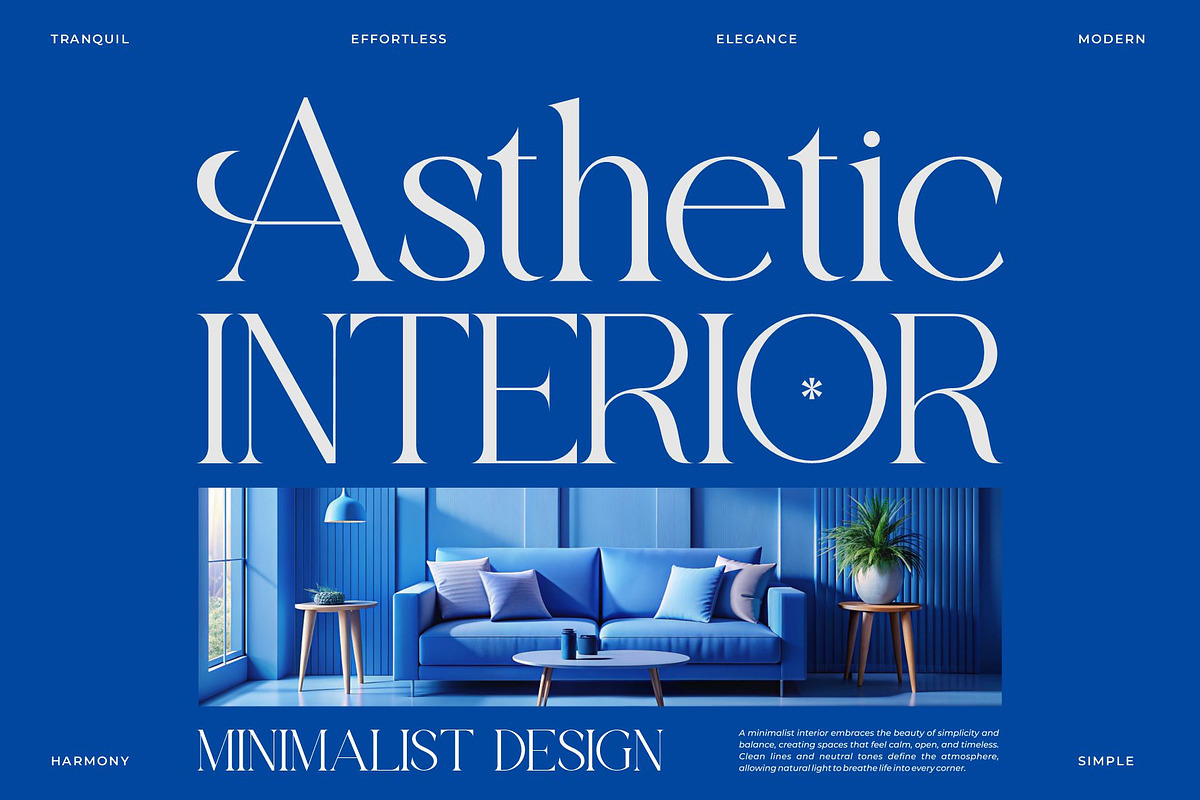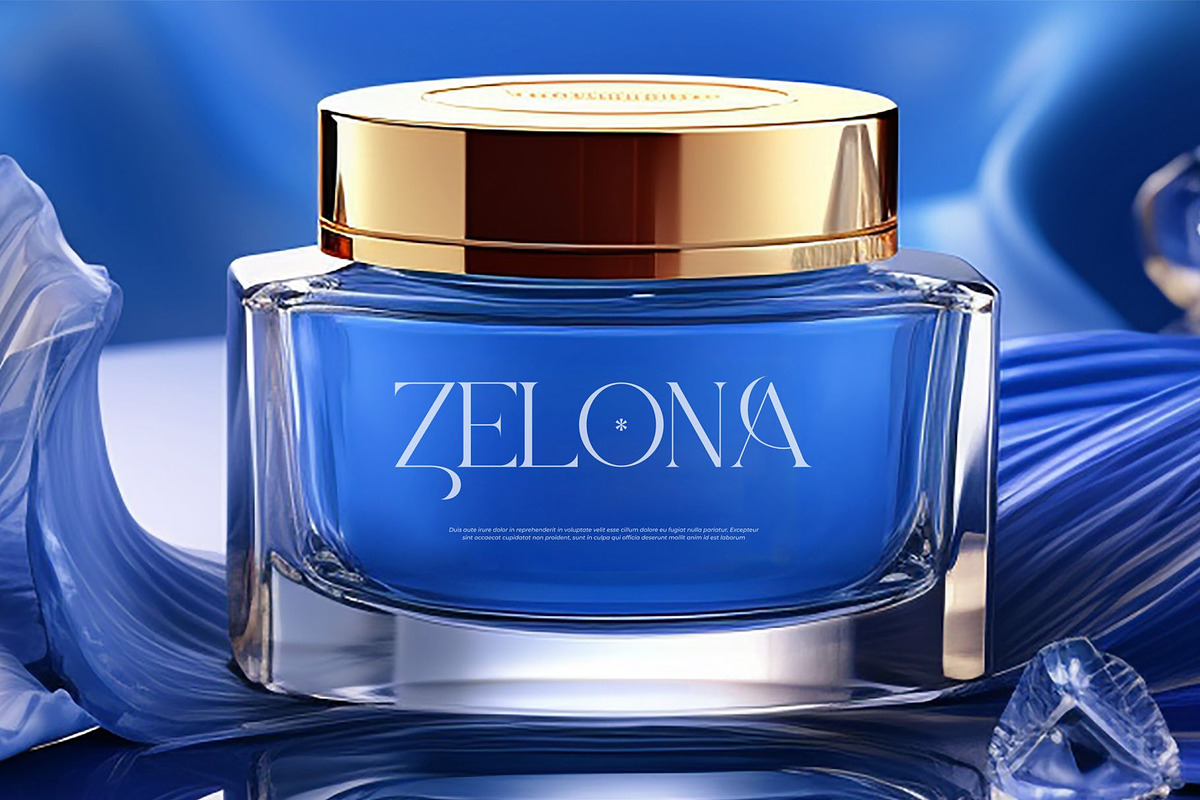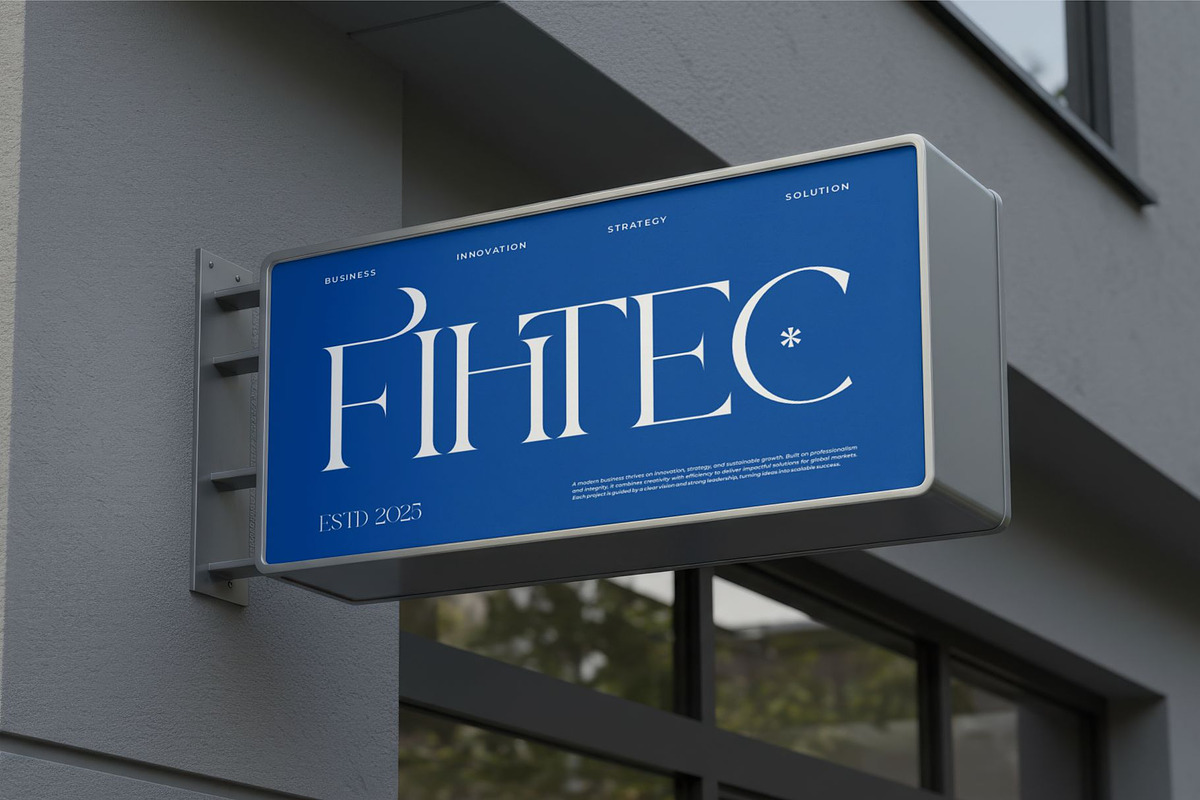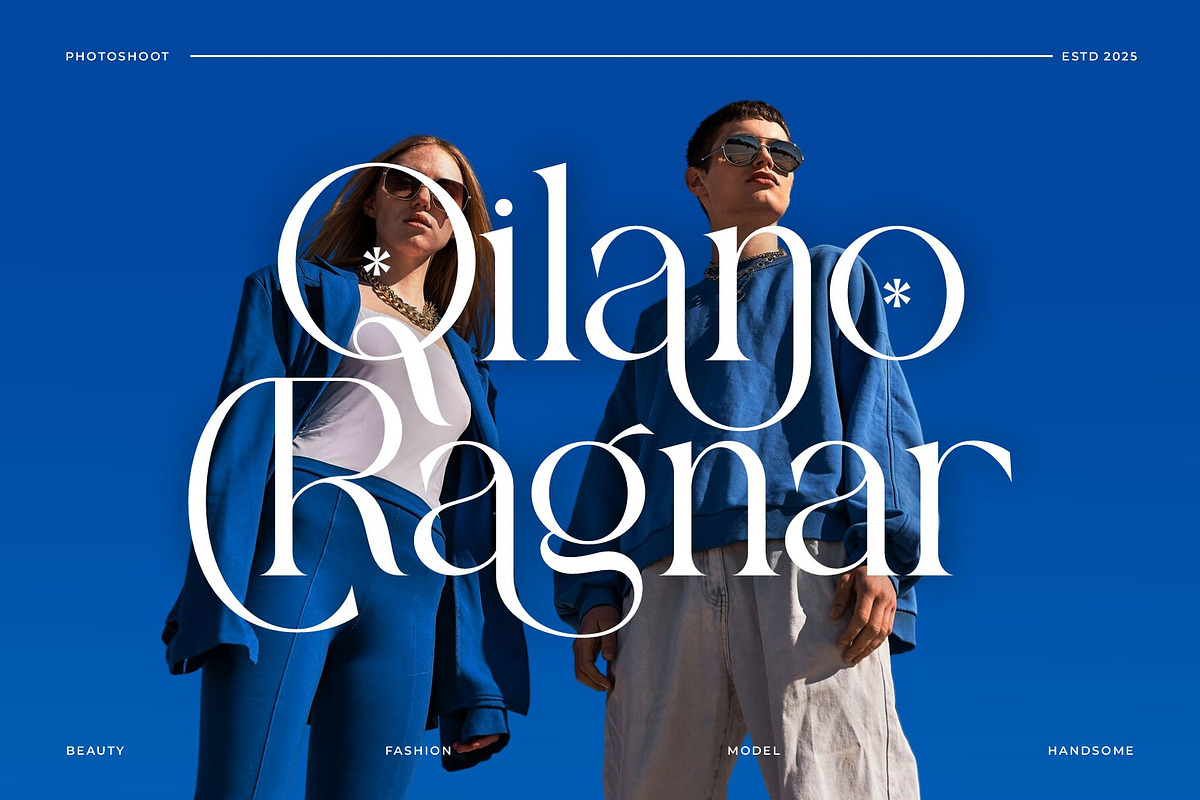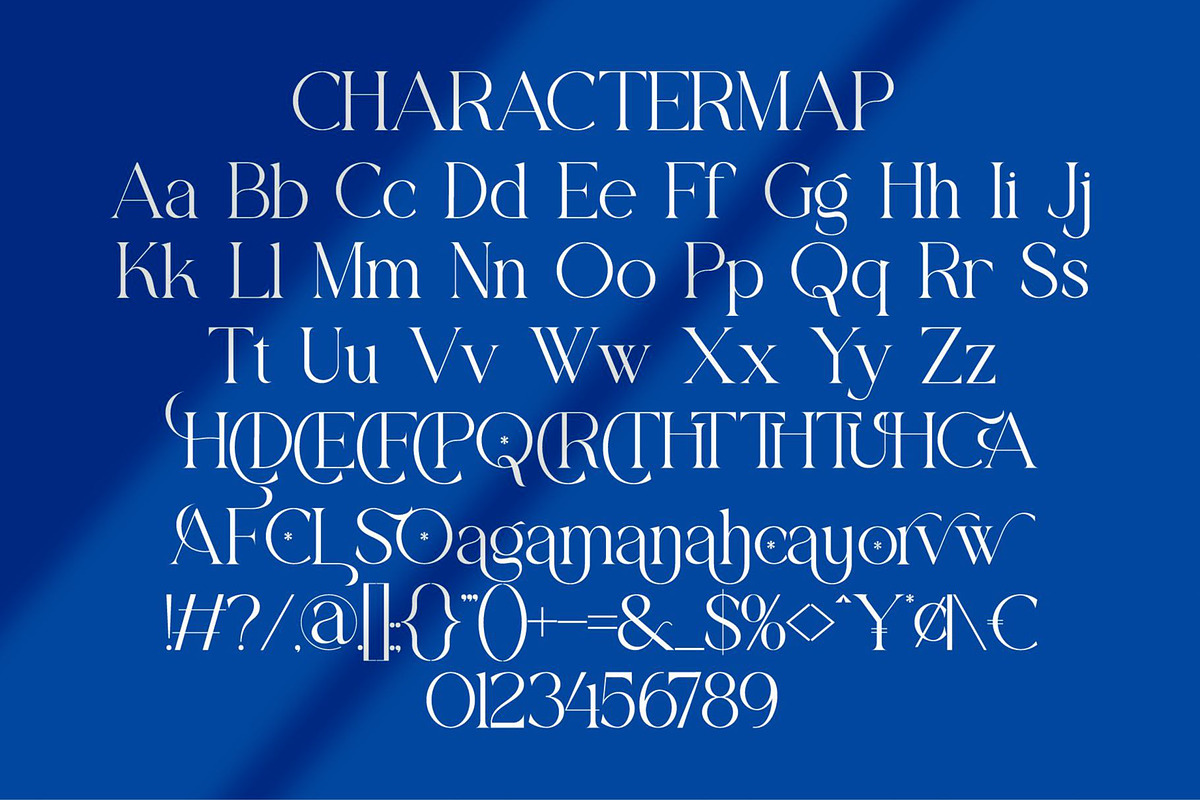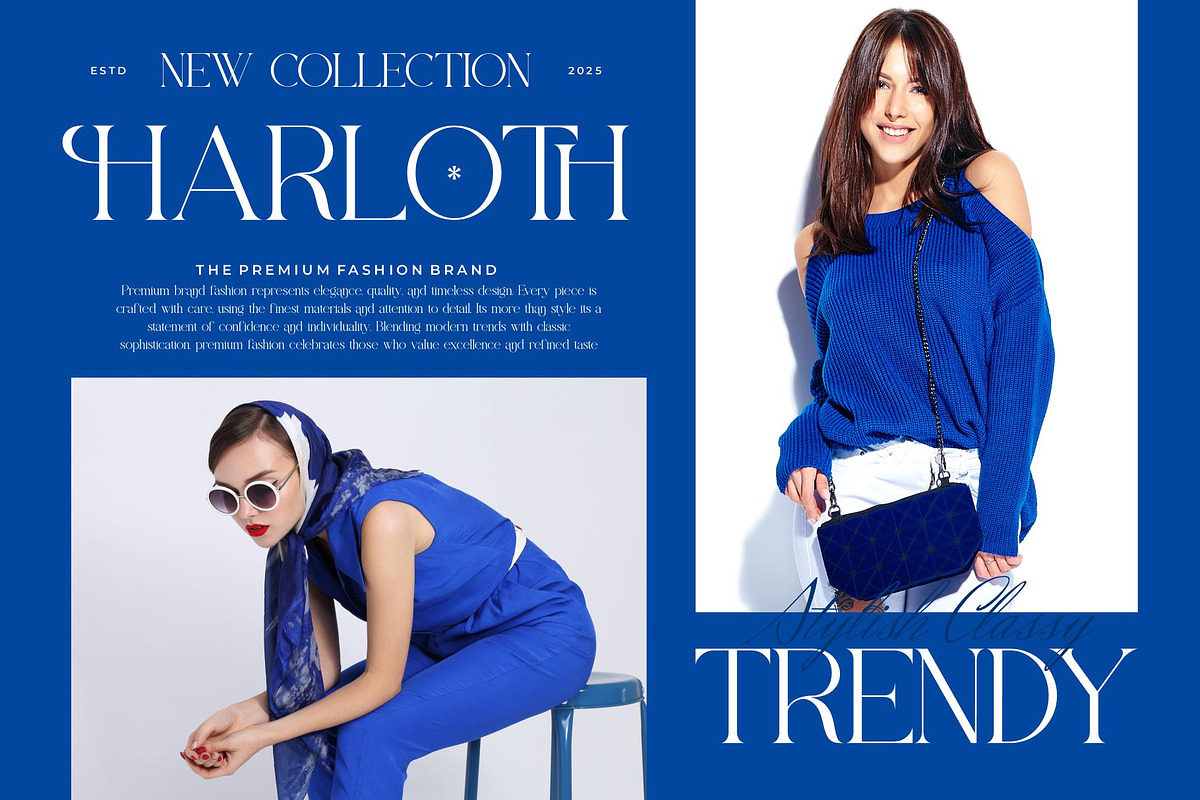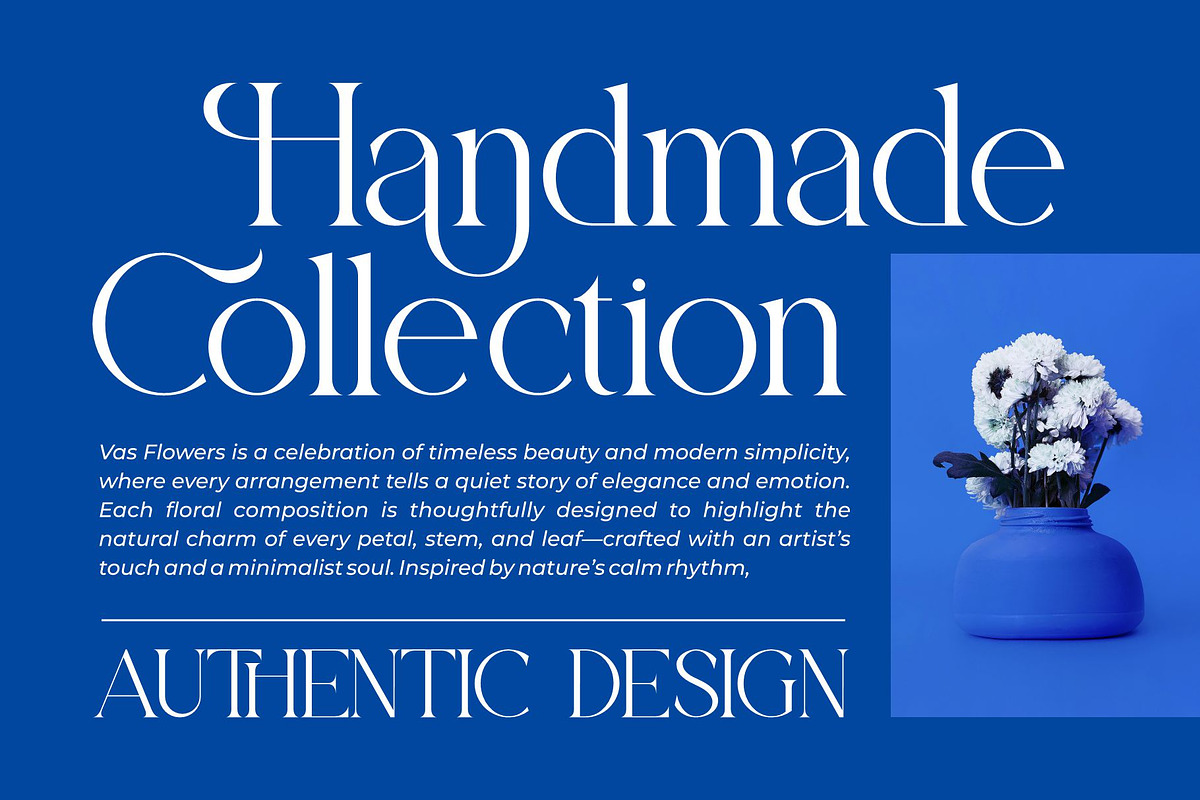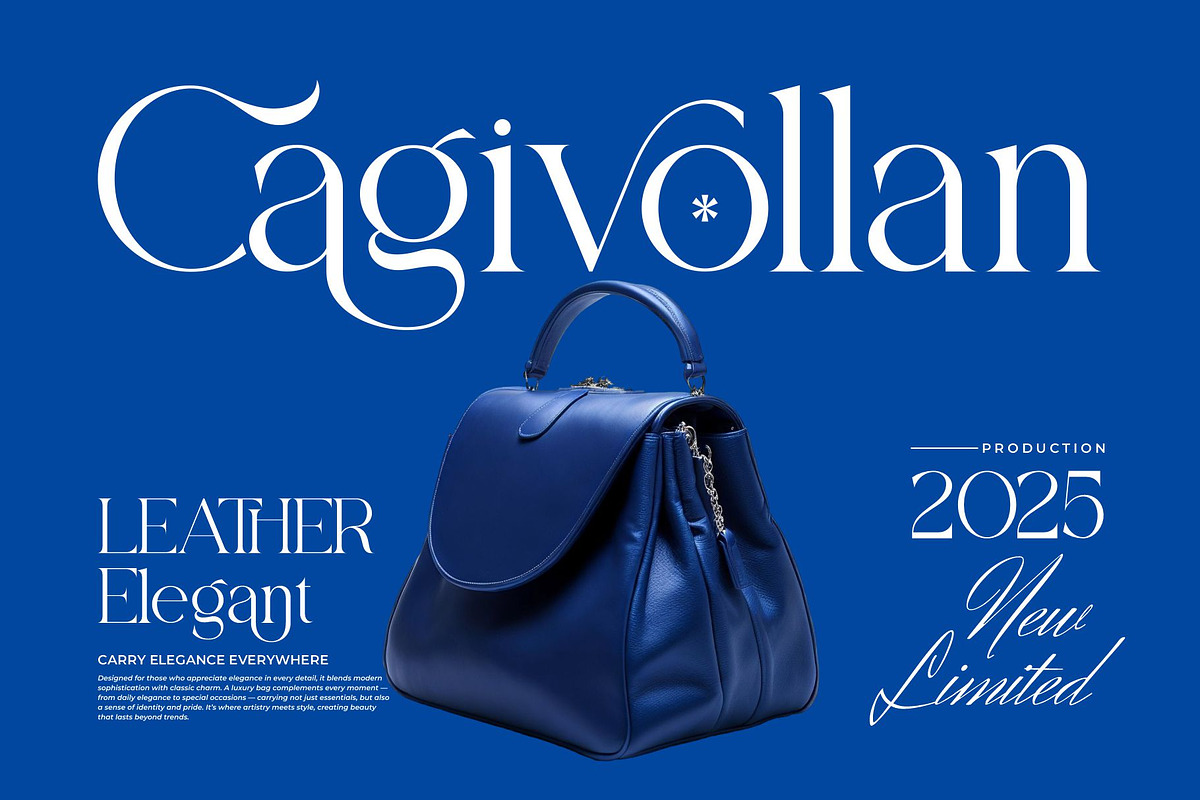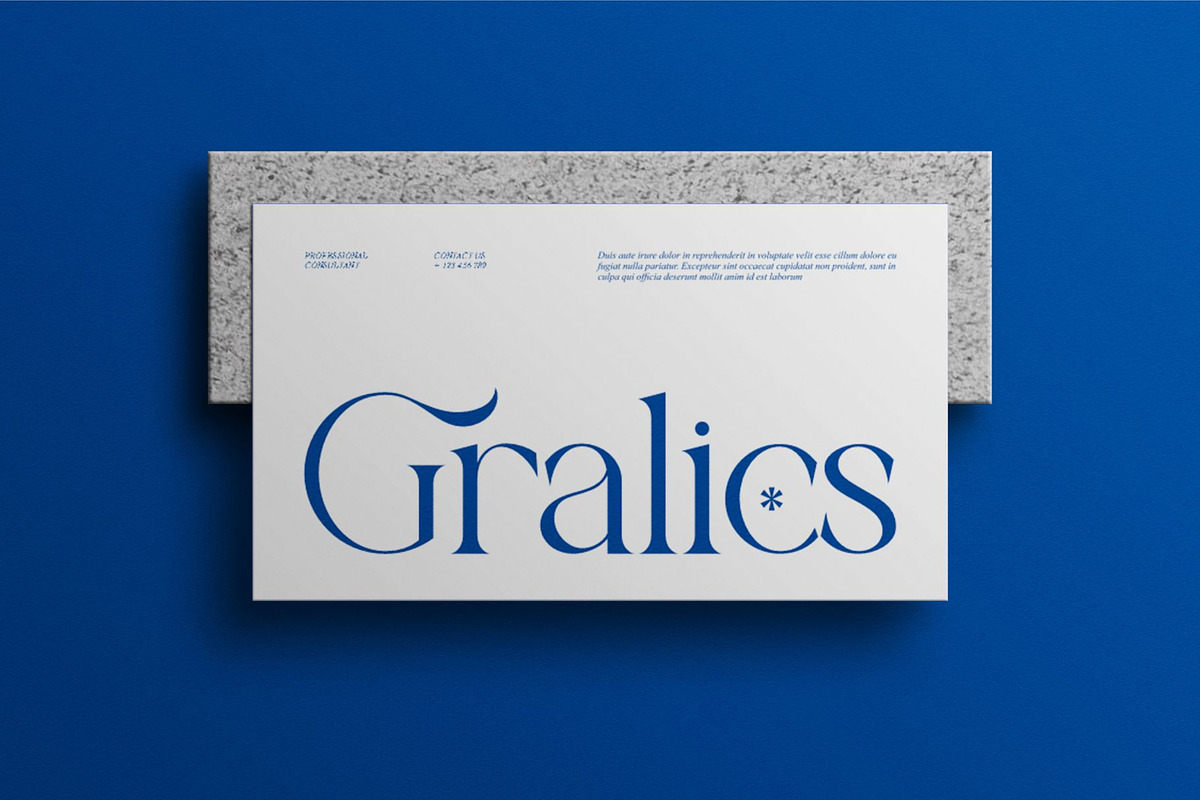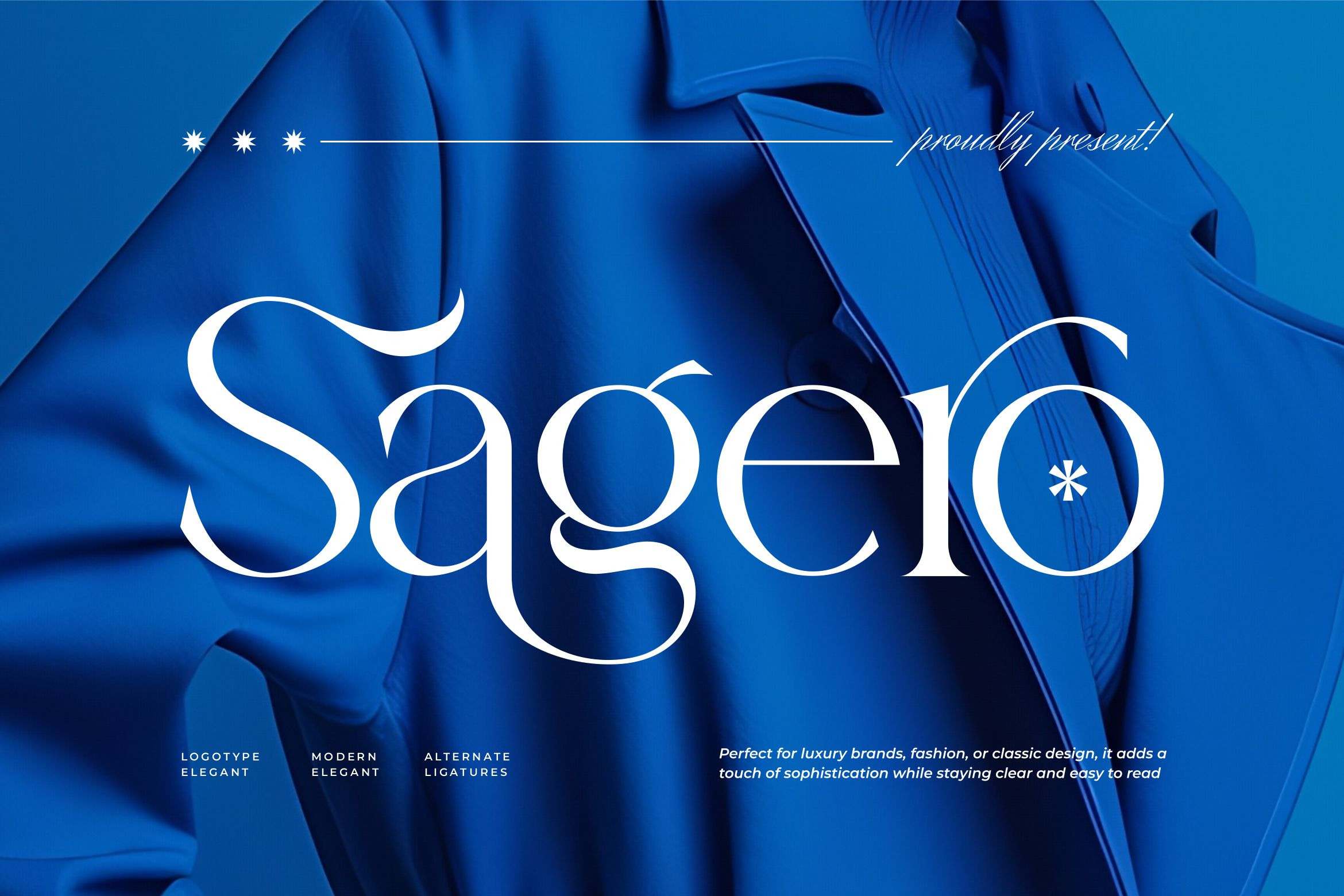
Sagero |Modern Elegant Serif Font
Sagero Serif is a modern and elegant font type for all branding and logo designs. This modern and elegant Serif font has a beautiful character. This font is suitable for invitation card designs, cool logos, movie titles, movie names, business cards, book titles, brand names, and various other designs. Sagero Serif is a smooth serif font that exudes sophistication and the moment. Its stylish ligatures and alternates make this font a perfect partner for any project.
- Ligature and Alternate